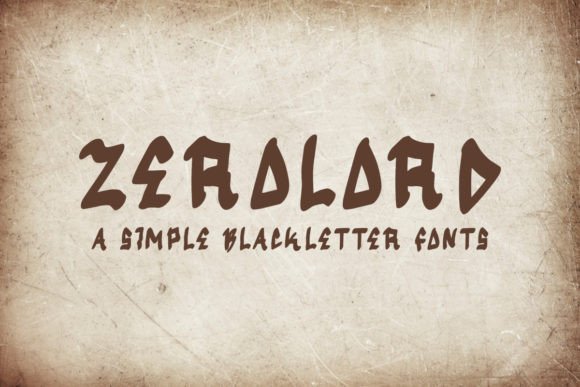
Experience the Enchanting Realm of Zerolord: Where Timeless Designs Take Flight!
Prepare to be captivated by the allure of Zerolord, a font that transcends time, embodying the essence of vintage blackletter artistry. Step into a world of captivating designs, where the echoes of history blend seamlessly with the vibrancy of the present. Zerolord is not just a font; it's a journey through the ages, a testament to the enduring power of creativity.
This meticulously crafted font family, brought to life by the visionary minds at Font-Tastic, invites you to embrace the mystique of forgotten eras. Its intricate strokes and elegant curves evoke a sense of nostalgia, while its unwavering boldness commands attention. Zerolord effortlessly bridges the gap between the past and the present, offering a timeless aesthetic that elevates your designs to new heights.
Unlock the limitless potential of Zerolord and unleash your imagination. Whether you're a seasoned designer or just starting your creative journey, this versatile font will become your trusted companion. From branding projects that demand a touch of heritage to personal endeavors seeking a unique and evocative charm, Zerolord effortlessly adapts to your vision.
Immerse yourself in the world of Zerolord and discover a symphony of possibilities. Craft logos that radiate timeless elegance, design posters that transport viewers to bygone eras, or create social media graphics that capture the hearts of your audience. The possibilities are endless, and the only limit is your imagination.
As you explore the depths of Zerolord's versatility, you'll uncover a treasure trove of design applications. Let your creativity soar as you breathe life into book covers that whisper tales of old, design invitations that exude an air of exclusivity, or create wedding stationery that celebrates the enduring bonds of love. With Zerolord, every project becomes a masterpiece, imbued with a touch of timeless elegance.